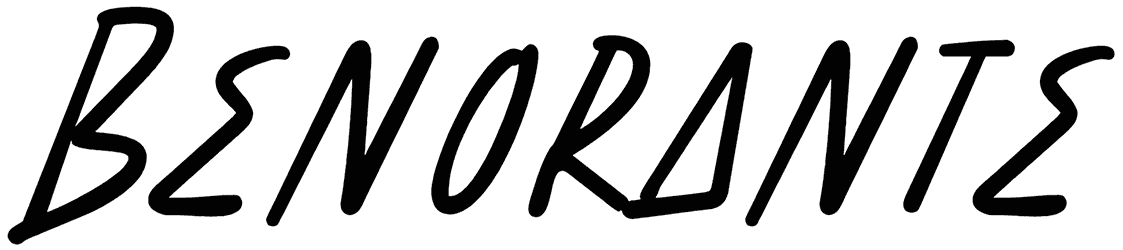
Benorante Font
As you already know, to make a flawless text-based layout, what comes first is choosing the right font. That’s why you should take a look at this handwritten font. Benorante can give a casual look to your books, flyers, posters, etc, but remember that this one doesn’t include numbers and small characters. If you crave to access more, come and visit our website.